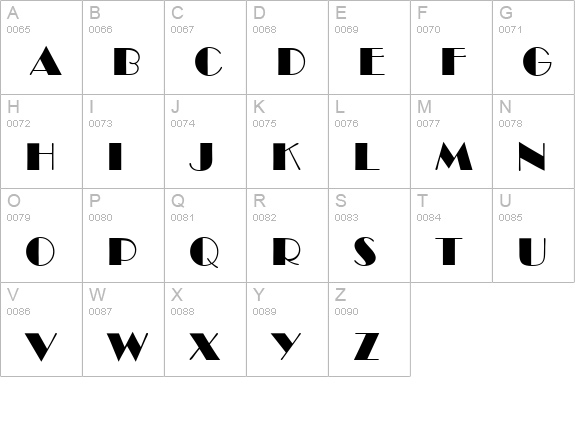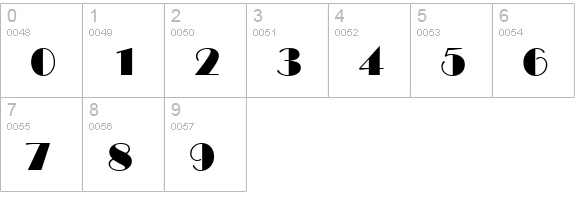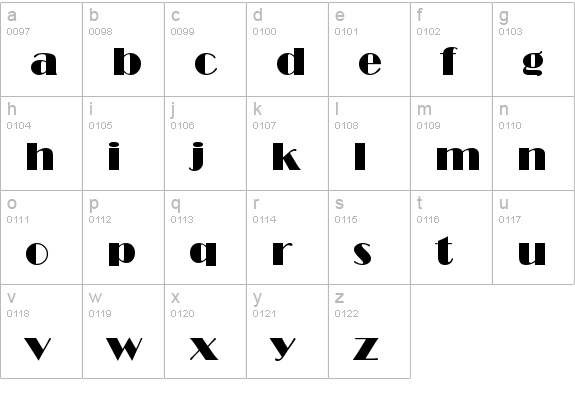
QTTheatre Regular Font Details
QTTheatre Regular is the standard, neutral variant in the QTTheatre typeface family \xE2\x80\x94 well suited to general body text, paragraphs, and standard typographic work.
Introducing QTTheatre Regular, a stunning and versatile font that is sure to captivate and inspire. With its clean lines and sophisticated curves, this font exudes elegance and professionalism, making it perfect for a wide range of design projects. What sets QTTheatre Regular apart is not only its aesthetic appeal but also its accessibility. This font is freely available to download at FontsMarket.com, allowing designers and enthusiasts alike to incorporate its beauty into their creations without any obstacles or limitations. Whether you're working on a logo, a website, a poster, or any other design project, QTTheatre Regular will effortlessly elevate your work to new heights. Its timeless elegance and versatility make it suitable for a variety of styles and themes, ensuring that your designs will always be on-trend and visually appealing. With QTTheatre Regular, you no longer have to compromise between aesthetics and accessibility. This font offers the best of both worlds, providing a visually stunning and freely available option for all your design needs. So why wait? Download QTTheatre Regular today and bring your creative visions to life with ease and elegance.